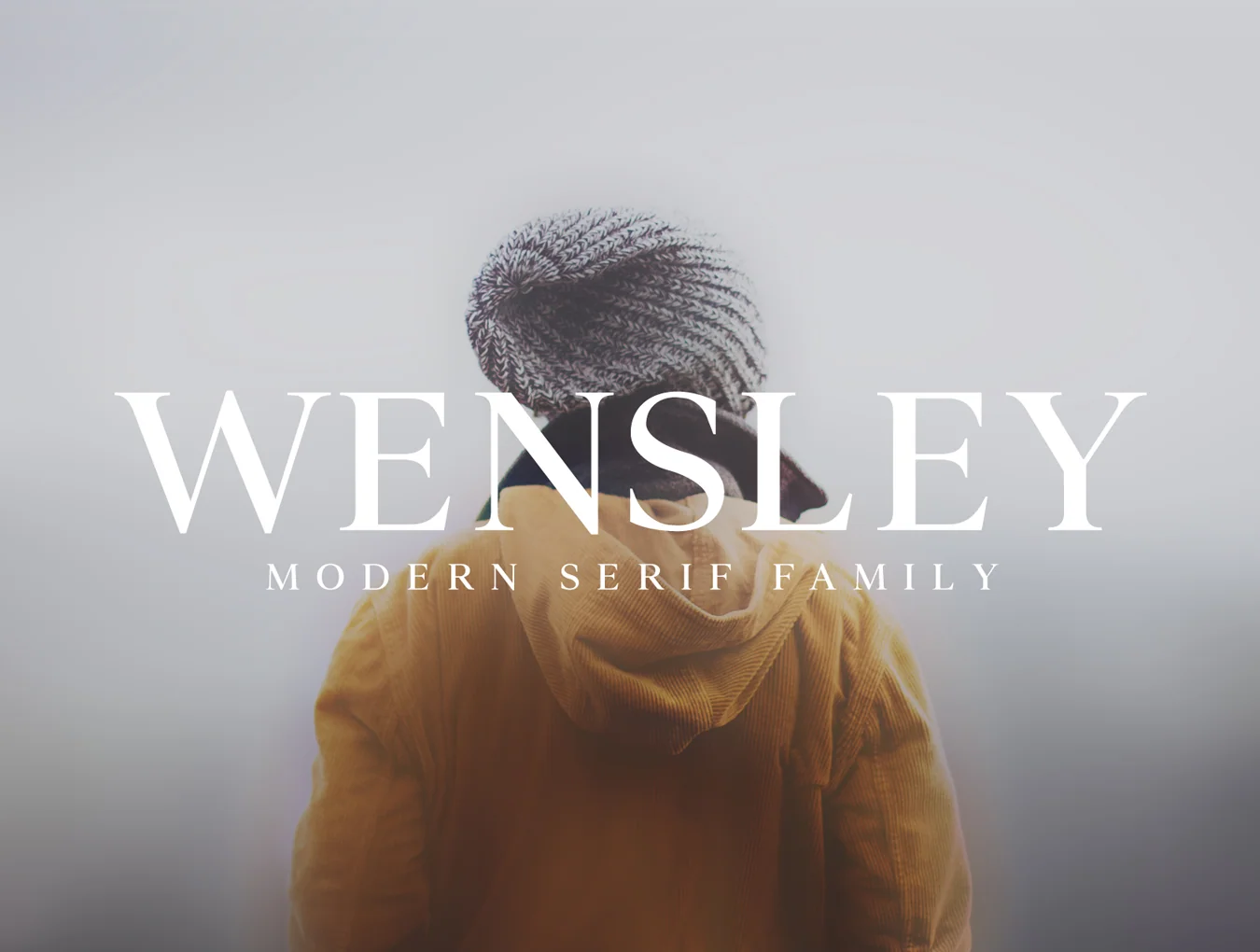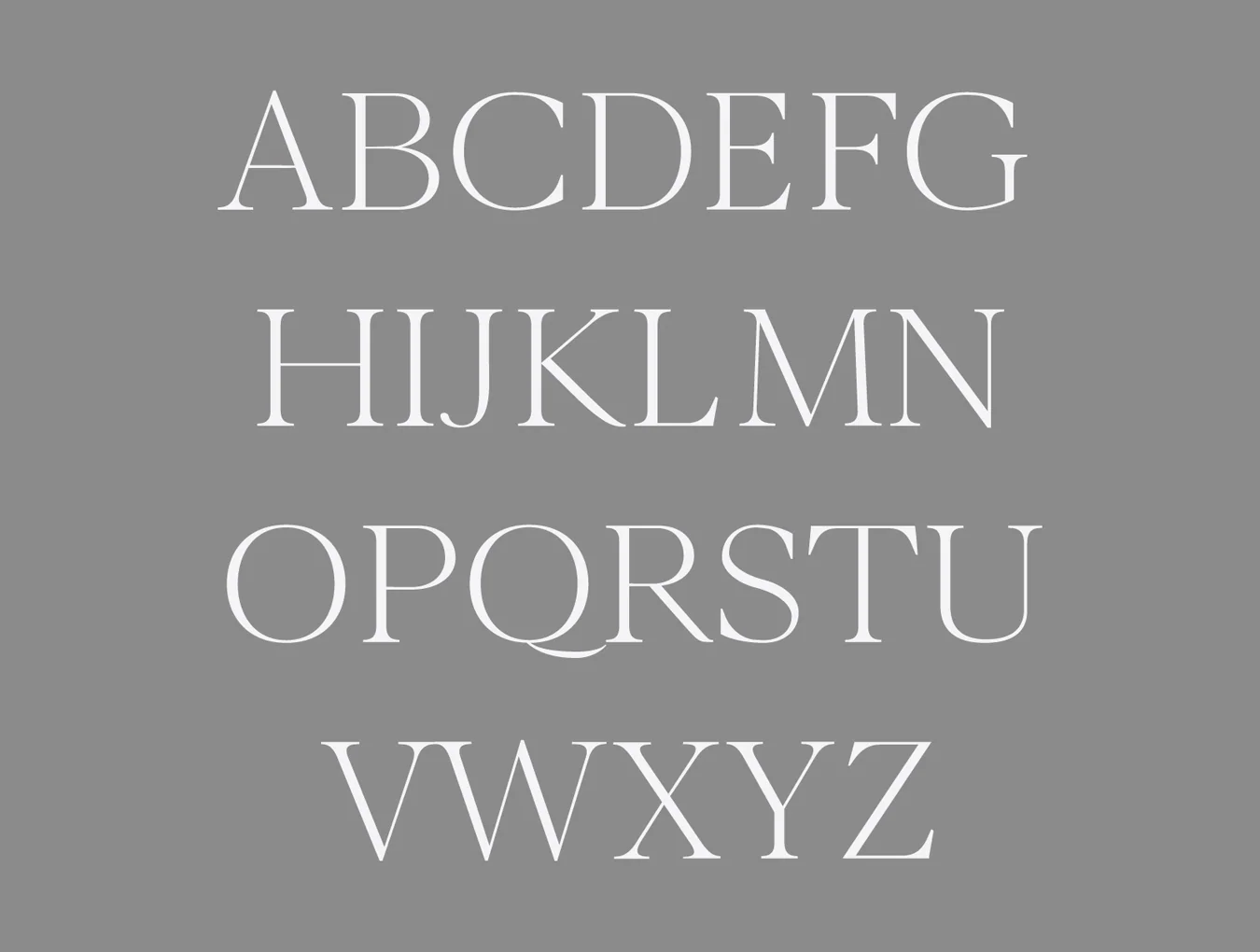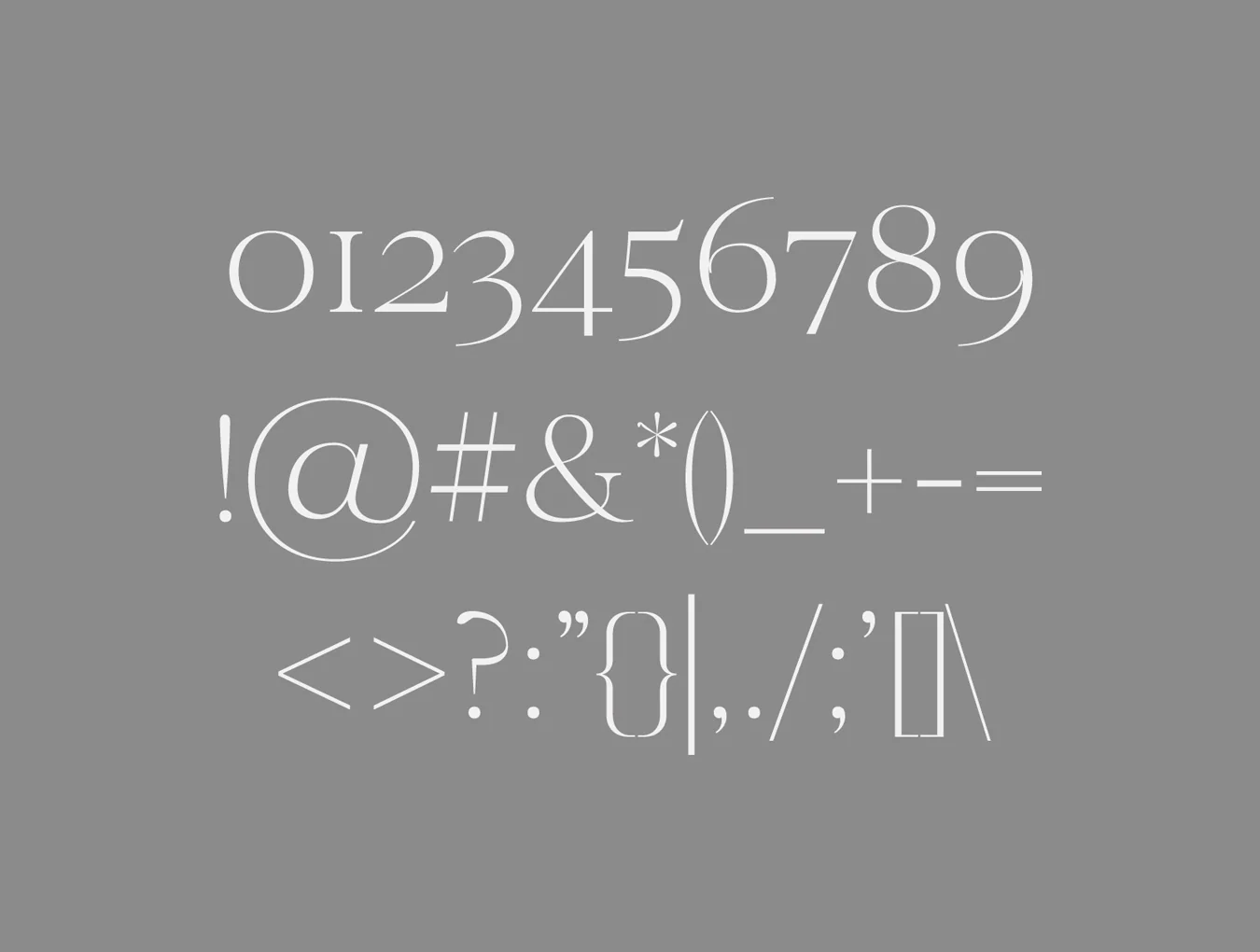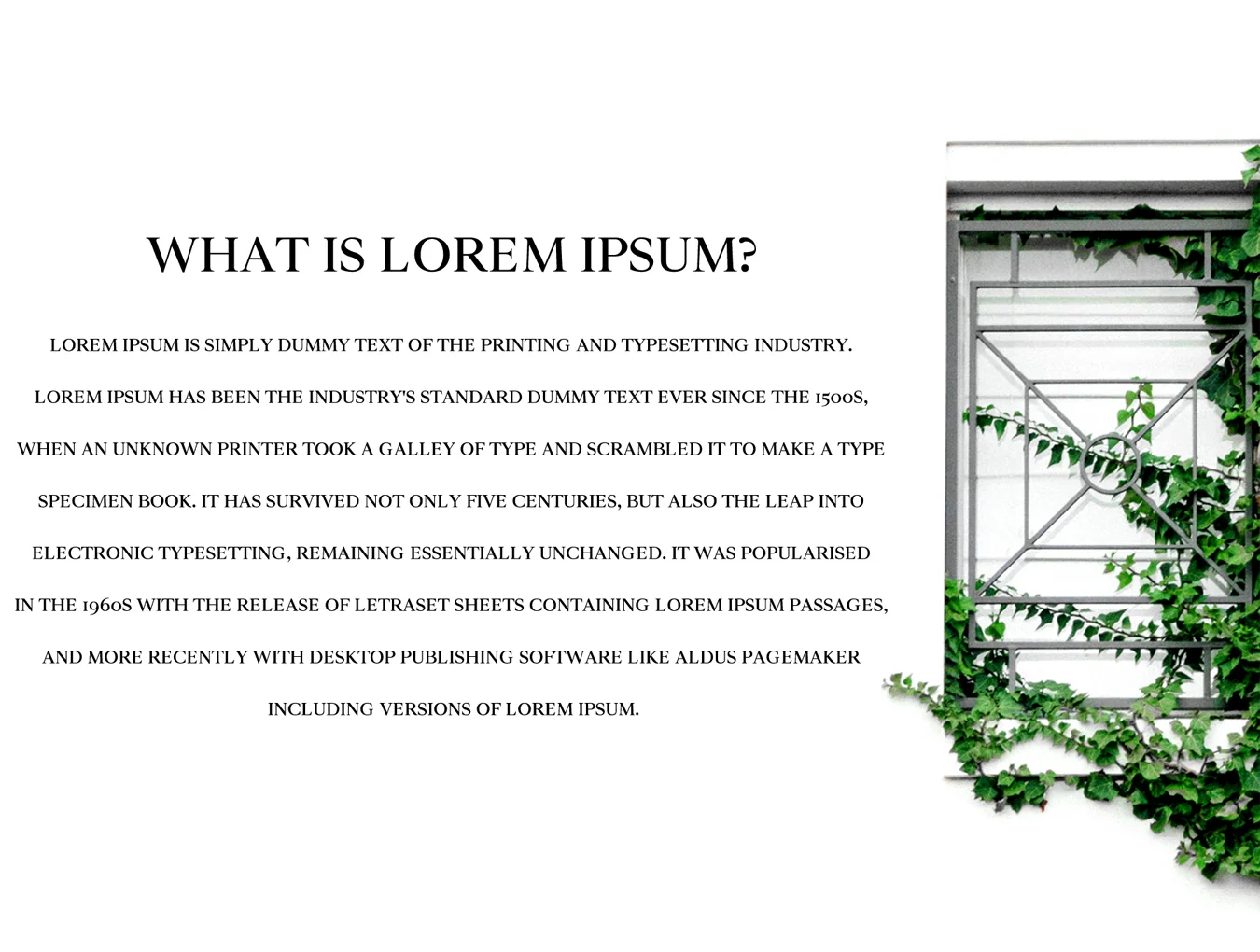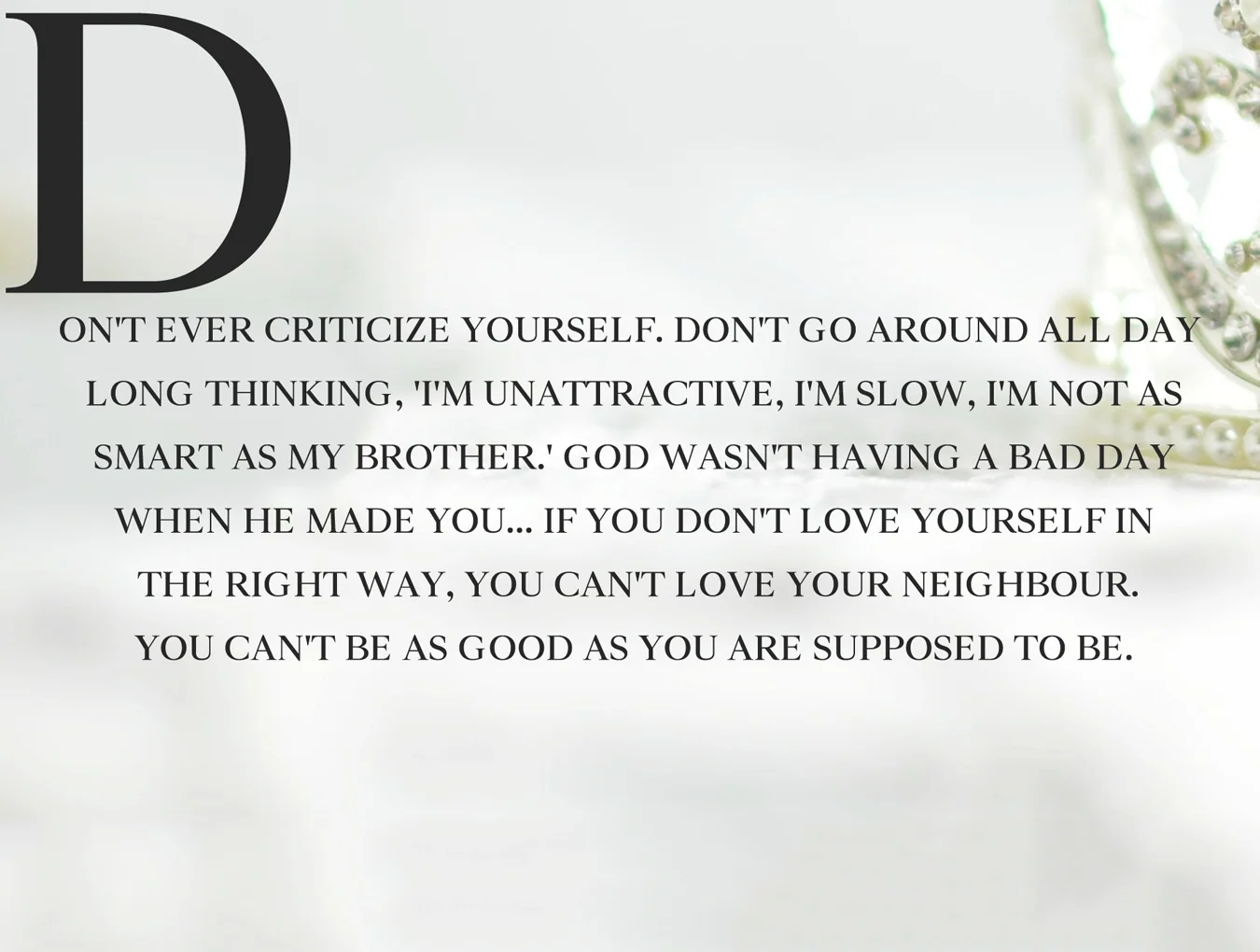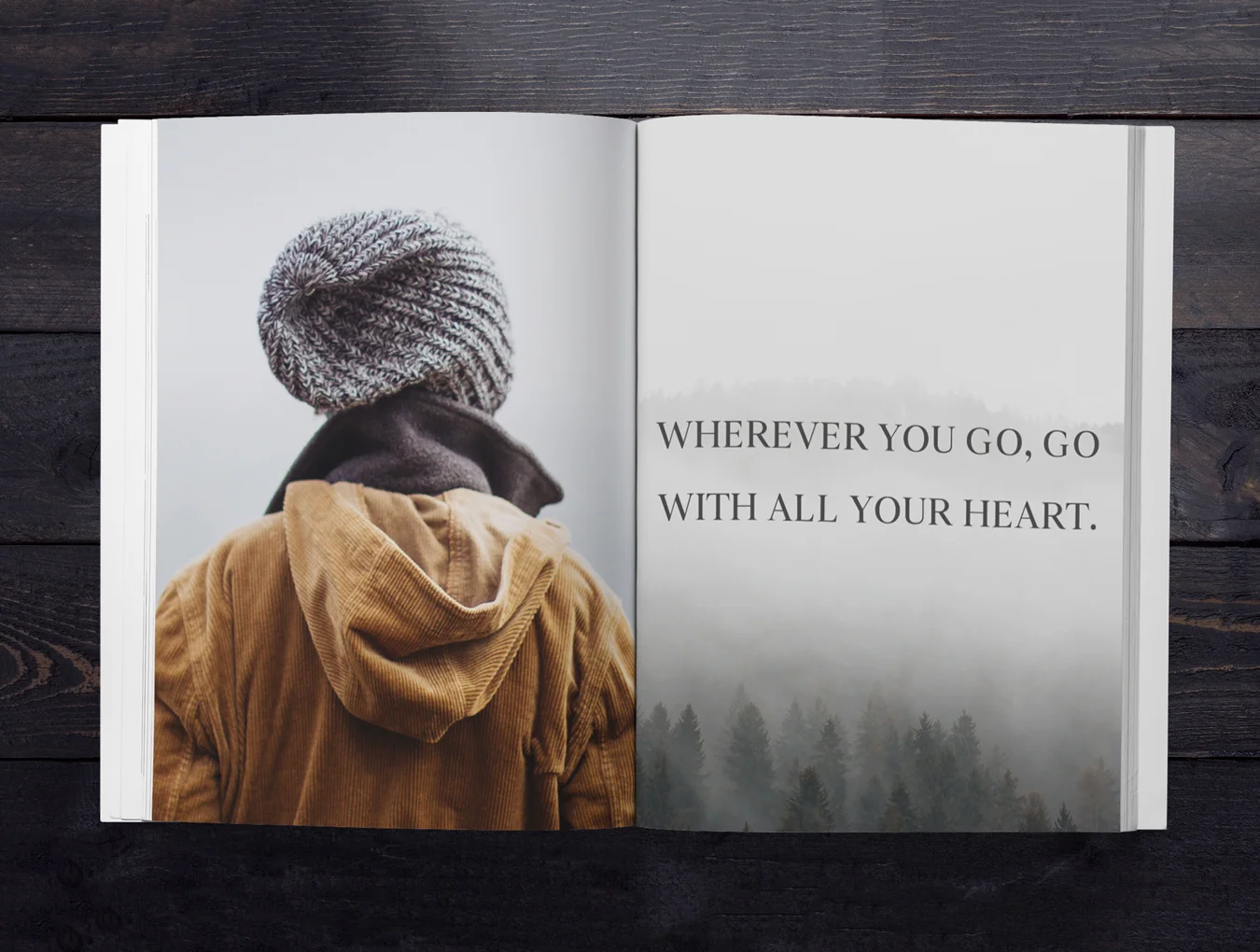
Wensley Modern Serif
Capital and small letterforms
Numerals plus punctuation marks
Regular, Light, and Bold styles
Wensley is a refined contemporary serif typeface with essential glyphs and multilingual characters. It pairs elegantly with script, signature, or handwritten fonts and suits headlines, titles, magazine headers, logos, presentations, posters, business cards, web layouts, invitations, books, branding, and many creative projects.